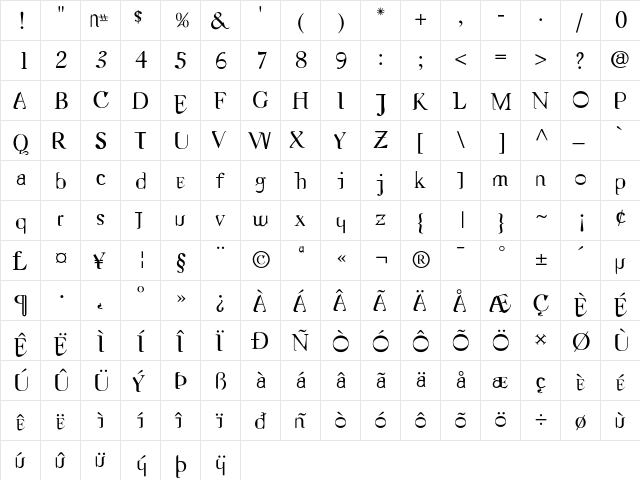
Nameless Regular
Design Context for Nameless Typeface
Nameless is a composed and adaptable typeface that performs quietly and consistently across a wide range of design contexts.